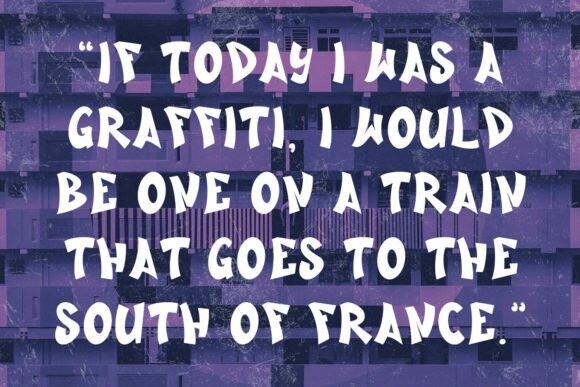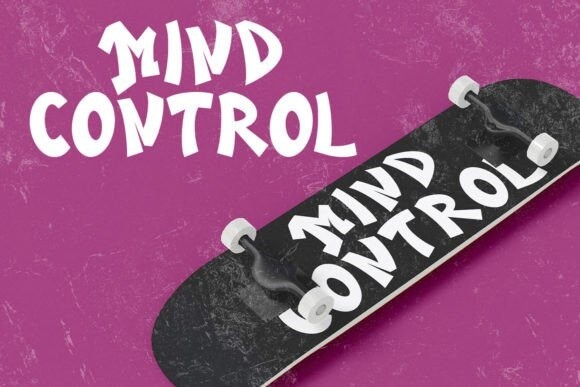
Sky Hype Font
Sky Hype Font is a display font with a light stroke and fun characters. It is perfect for logo design, social media, movie and book titles, social media, posters, banners and so much more. Make a stunning work with Sky Hype font.